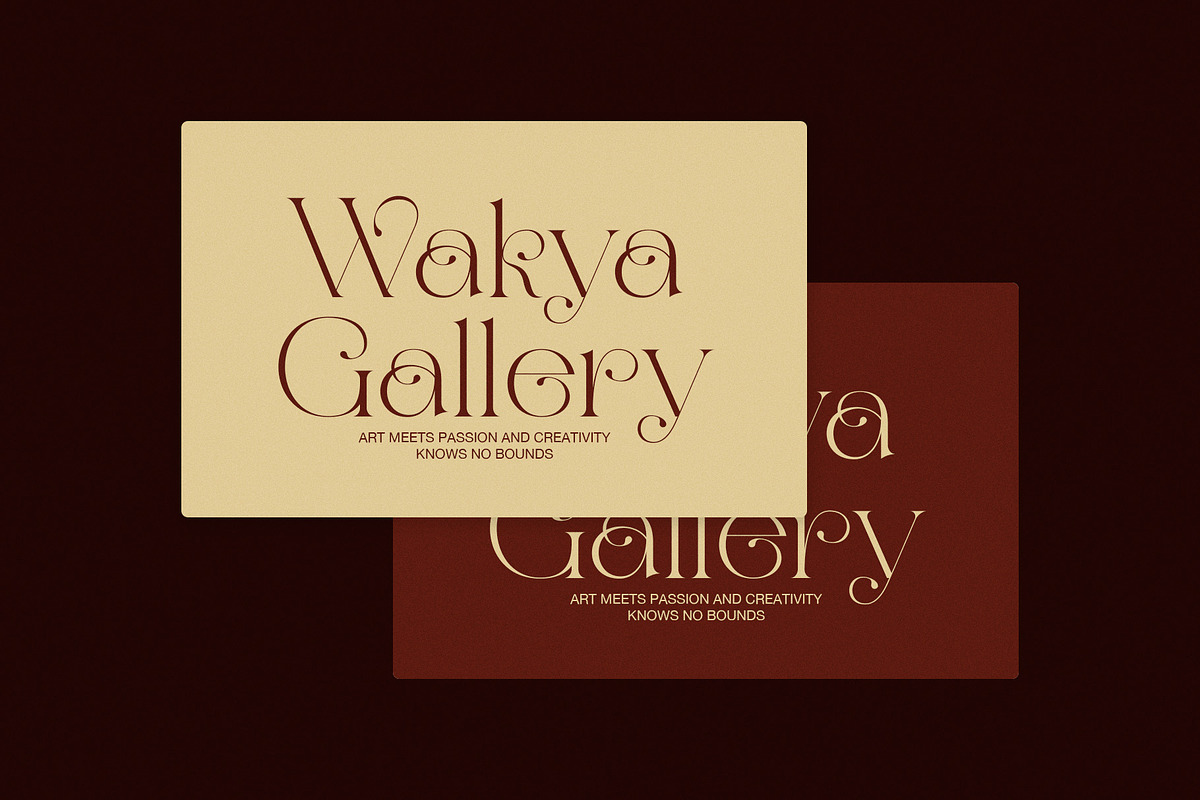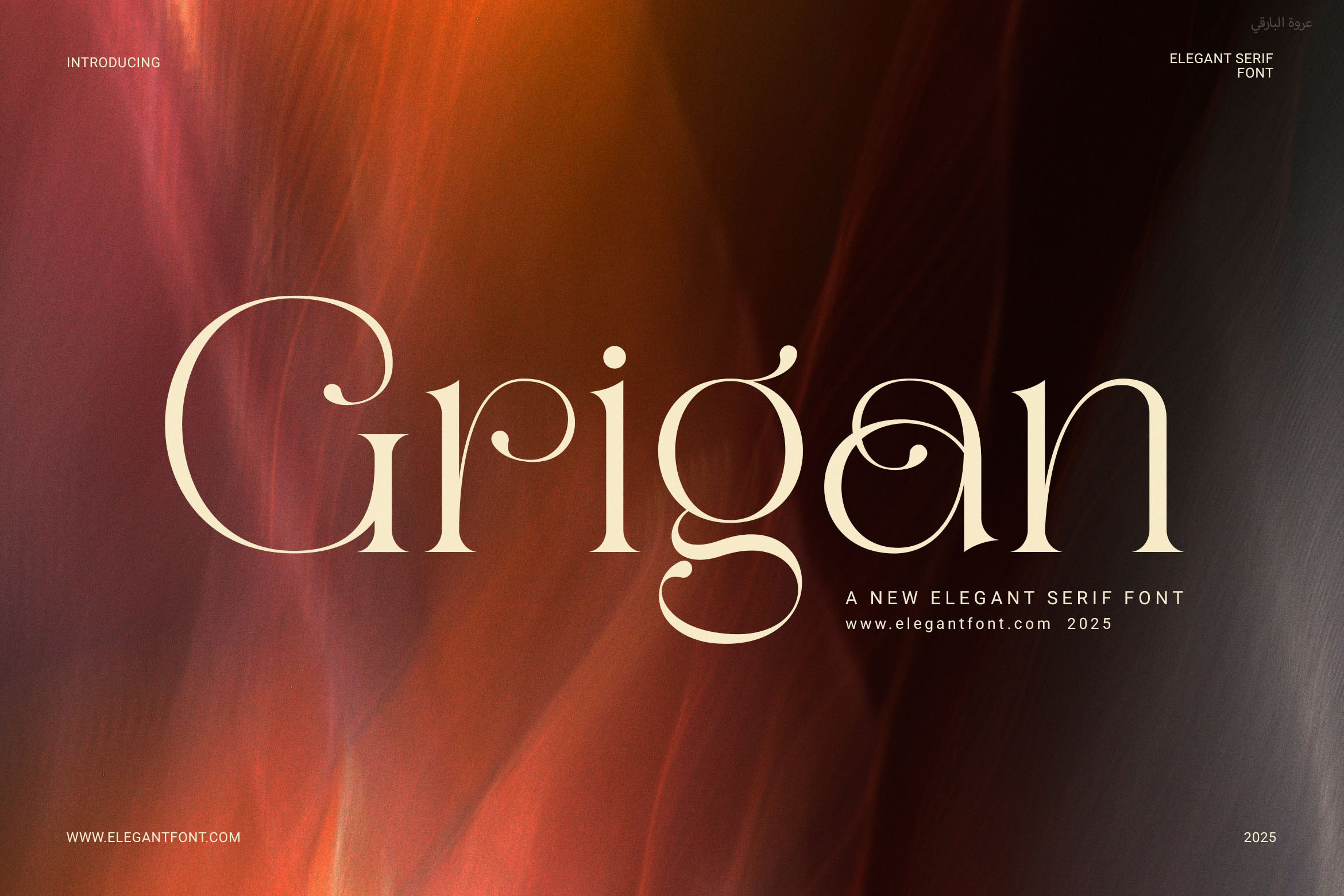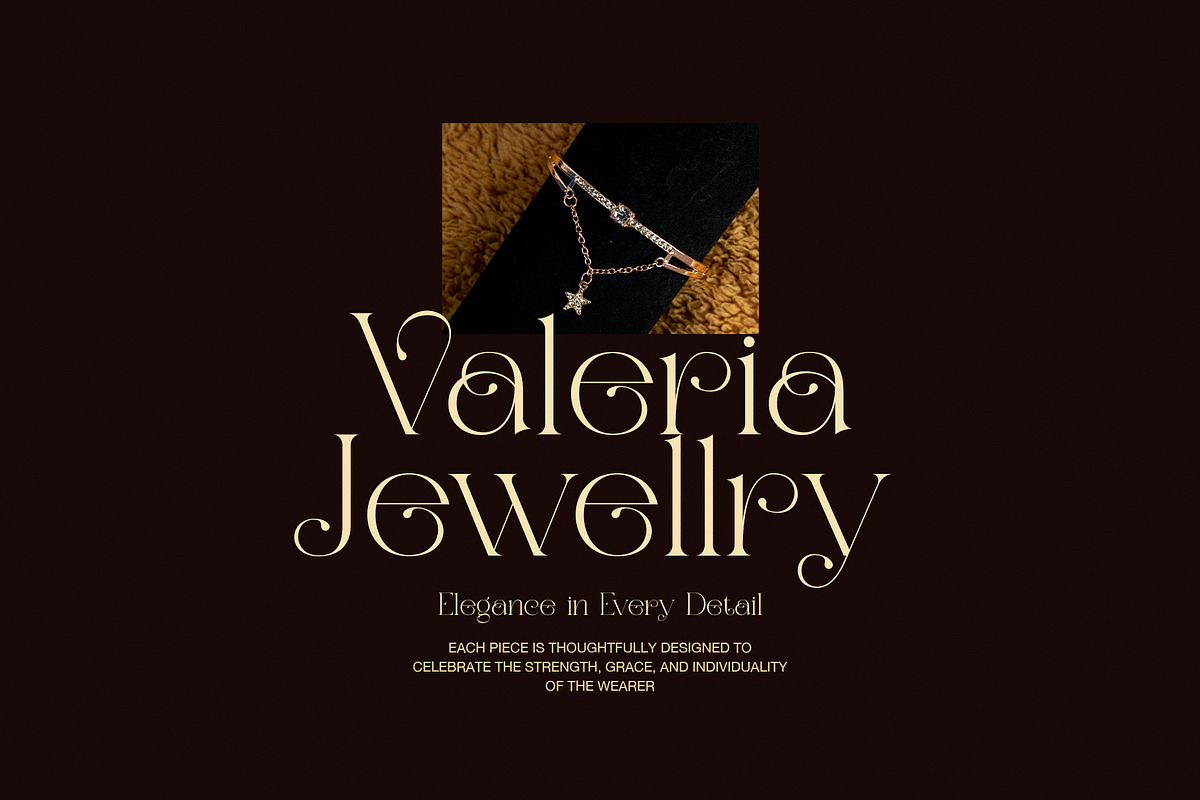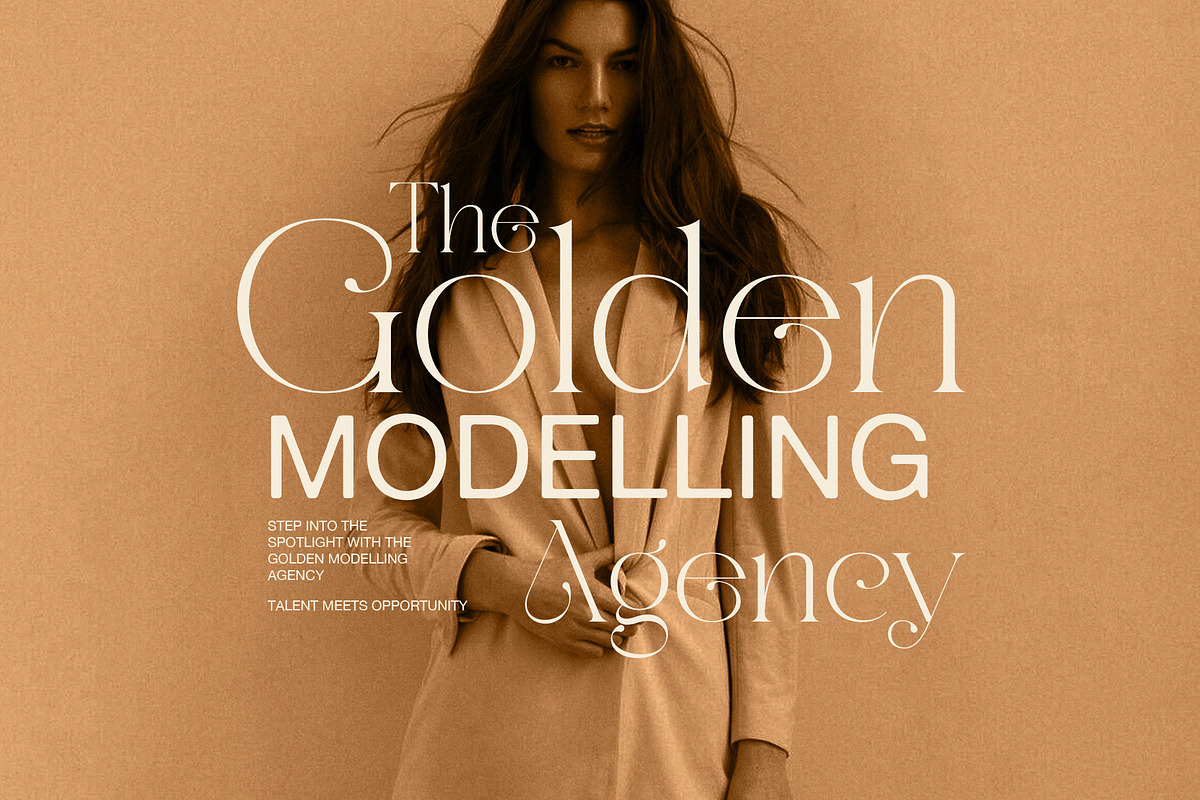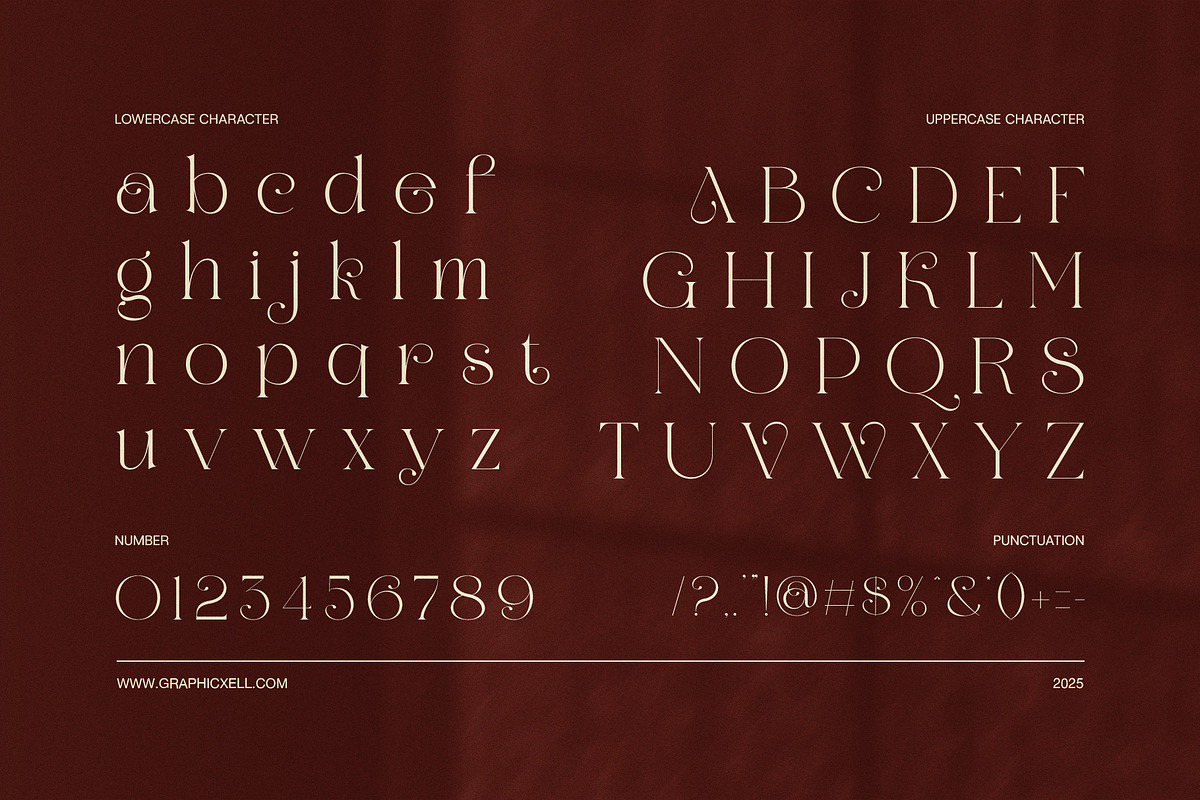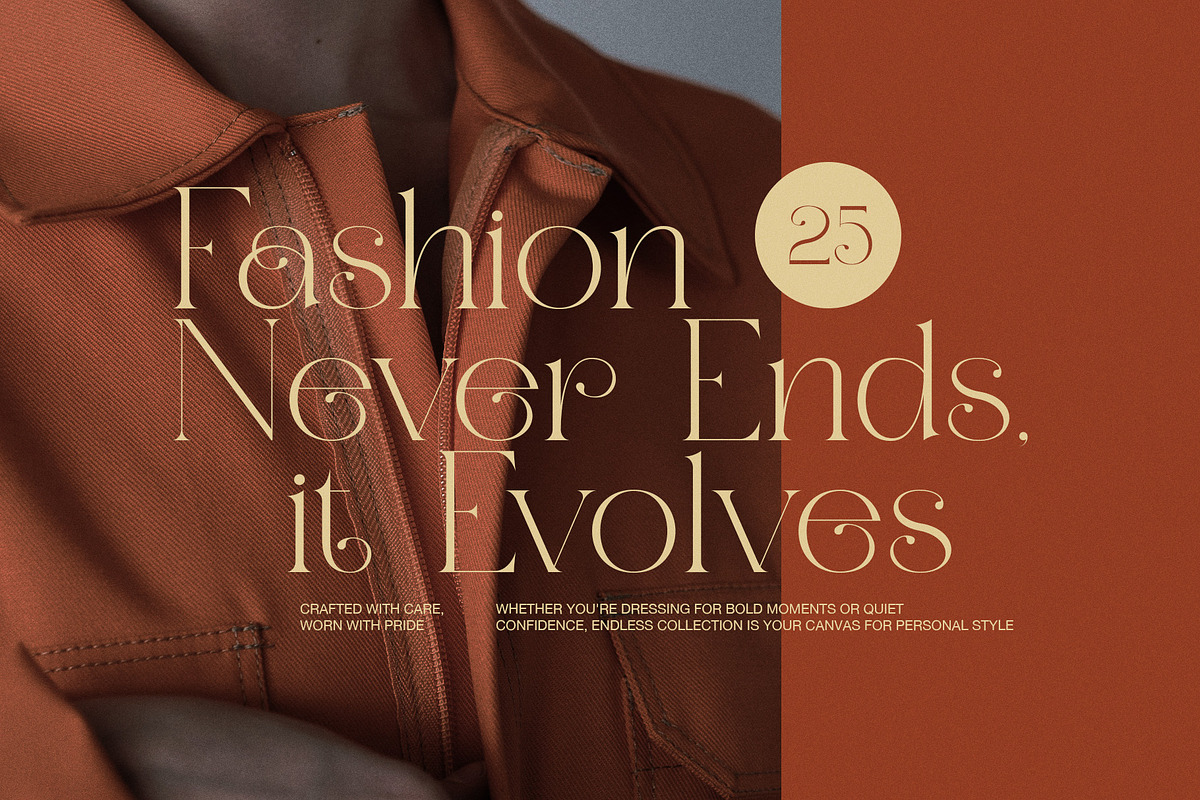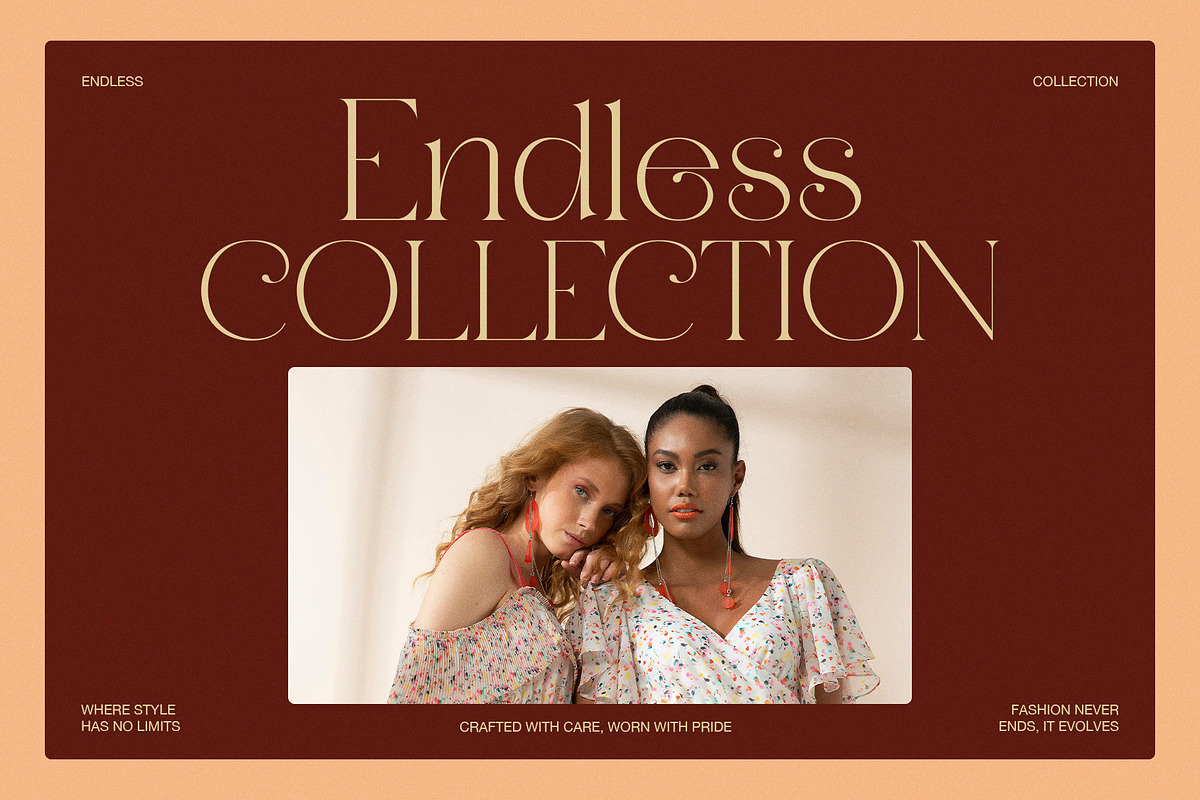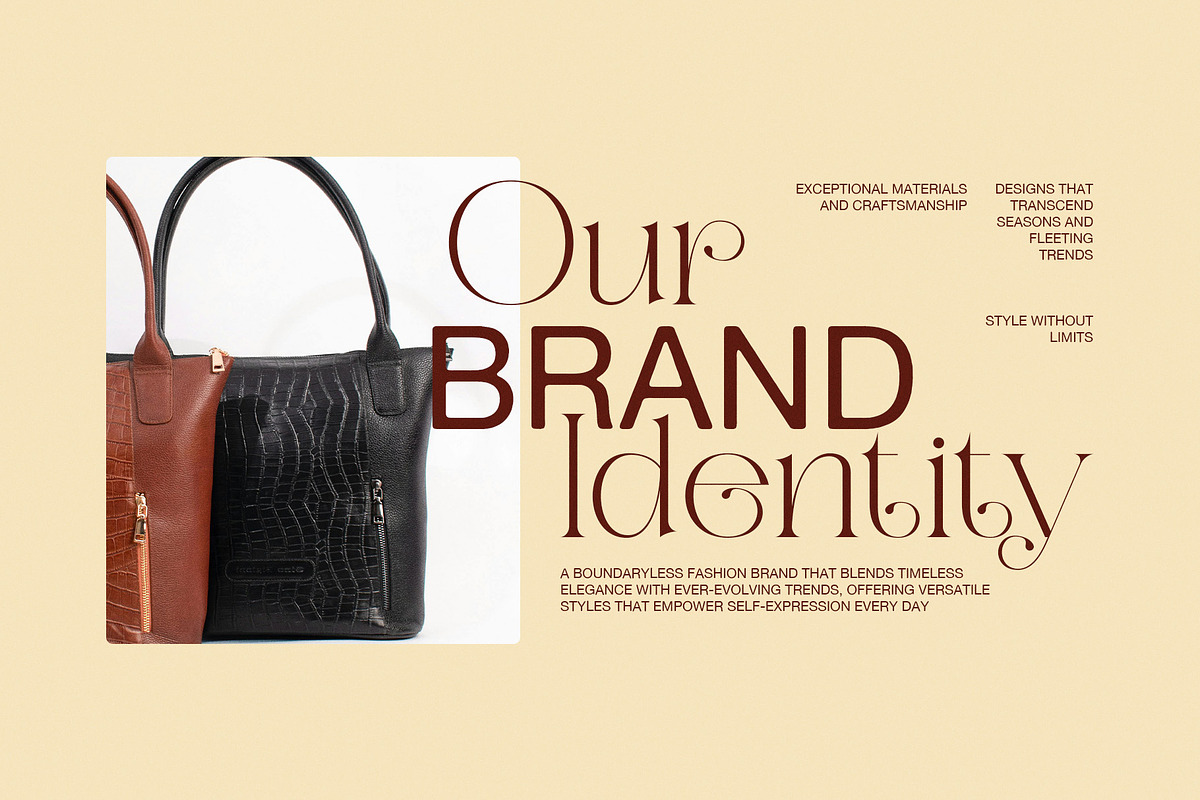
Grigan Stylish Serif Font
Grigan Stylish Serif Font is a modern serif typeface that brings elegance, balance, and character to your design. Its sleek letterforms and smooth curves create a clean, stylish look that fits perfectly in both bold and subtle layouts.
This font was built for clarity and beauty. With well-proportioned shapes and functional ligatures, Grigan adds a refined edge to any creative project. Whether you're working on a logo or designing a product label, this font helps your message stand out.
Why choose Grigan?
Because it’s flexible, easy to use, and looks great across all platforms. Not only does it fit branding work, but it also works well in digital layouts, social media, and printed content. As a result, your projects stay consistent and professional from start to finish.
You can use Grigan for:
Logo design and branding
Fashion, beauty, and boutique labels
Website headers and banners
Editorial layouts and magazines
Product packaging and menus
Social media graphics and ads
Additionally, Grigan offers full uppercase and lowercase sets, punctuation, numbers, and multilingual support. Because of its simplicity and function, you can use it in almost any creative project with ease.
Modern and elegant serif design
Smooth ligatures for added style
Proportional shapes for easy reading
Multi-language support
Works well in print and digital
In conclusion, Grigan Stylish Serif Font is a smart and stylish choice for any designer. It gives your brand a unique voice—while staying readable, balanced, and beautiful.
Don’t just design—create with style using Grigan. It's a font that brings both charm and clarity to everything you make.